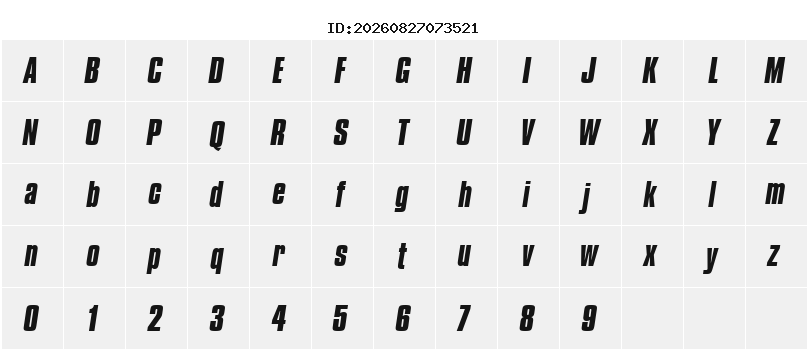
476-CAI978 Preview
About 476-CAI978.ttf
476-CAI978.ttf is a modern, elegant sans-serif font designed for ultimate readability and visual harmony. Perfect for branding, headlines, web design, and print materials.